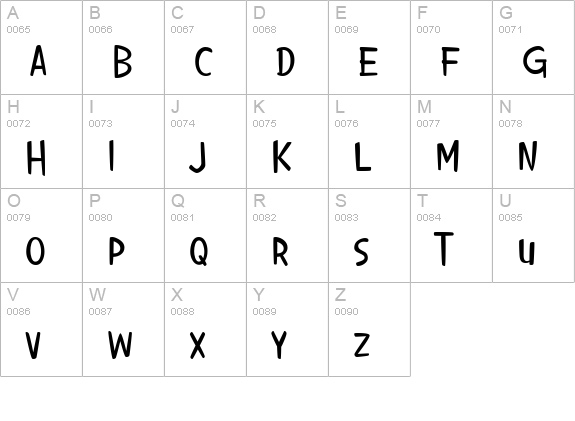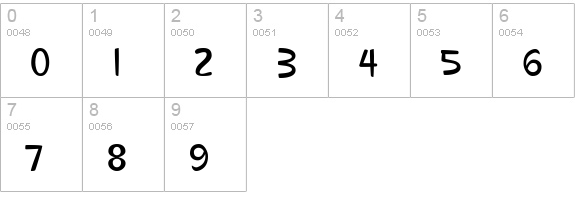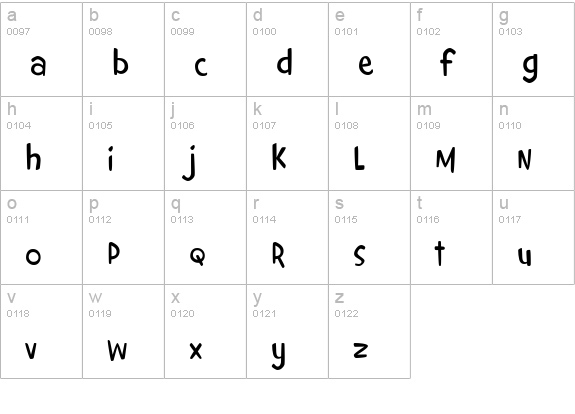
Giggles BTN Lt font is a whimsical and playful typeface that exudes a sense of joy and lightheartedness. With its rounded edges and friendly appearance, this font is perfect for adding a touch of fun to any project. Whether you're designing a party invitation, a children's book, or a cute logo, Giggles BTN Lt will bring a smile to your audience's face. The best part? Giggles BTN Lt font is completely free to download at FontsMarket.com. This means you can easily access this charming font and use it in your creative endeavors without any cost. So go ahead and spread some cheer with Giggles BTN Lt font today!